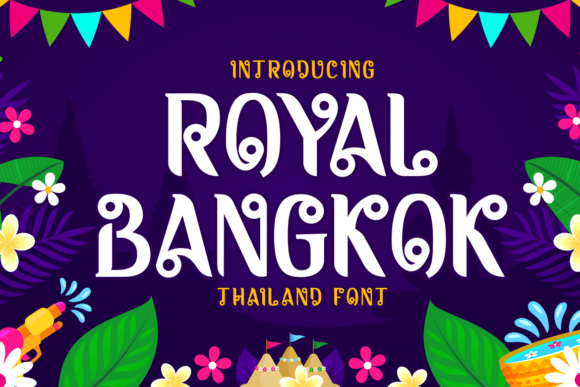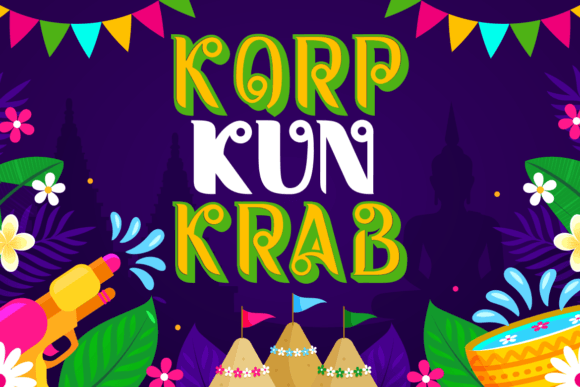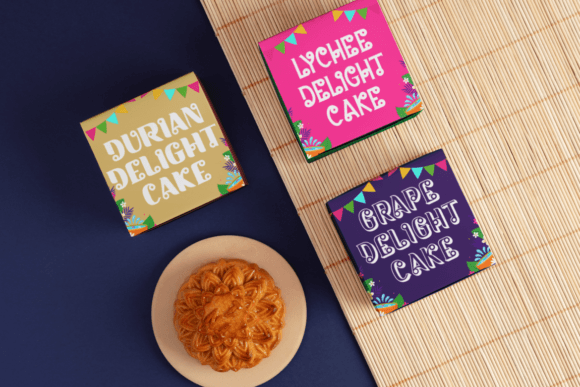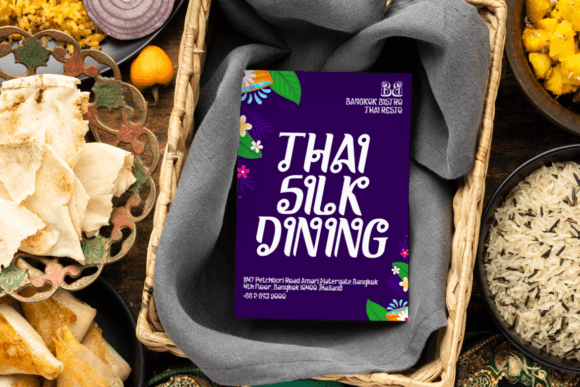
Royal Bangkok Font
About the Royal Bangkok Font
The Royal Bangkok Font offers a perfect balance of form and function for your design needs. Royal Bangkok – Thailand Font: A typographic masterpiece that encapsulates the spirit of Thailand’s rich cultural heritage. With its ornate contours and regal flair, this display font exudes the exotic charm of Bangkok’s historic temples and vibrant street life. Each letter is crafted with meticulous attention to detail, mirroring the intricate carvings found in ancient Java scripts and evoking the timeless beauty of ethnic artistry. The “Royal Bangkok – Thailand Font” is not just a typeface; it’s an invitation to journey through the heart of Thai tradition.
Royal Bangkok Font Usage Examples
Royal Bangkok Font Example